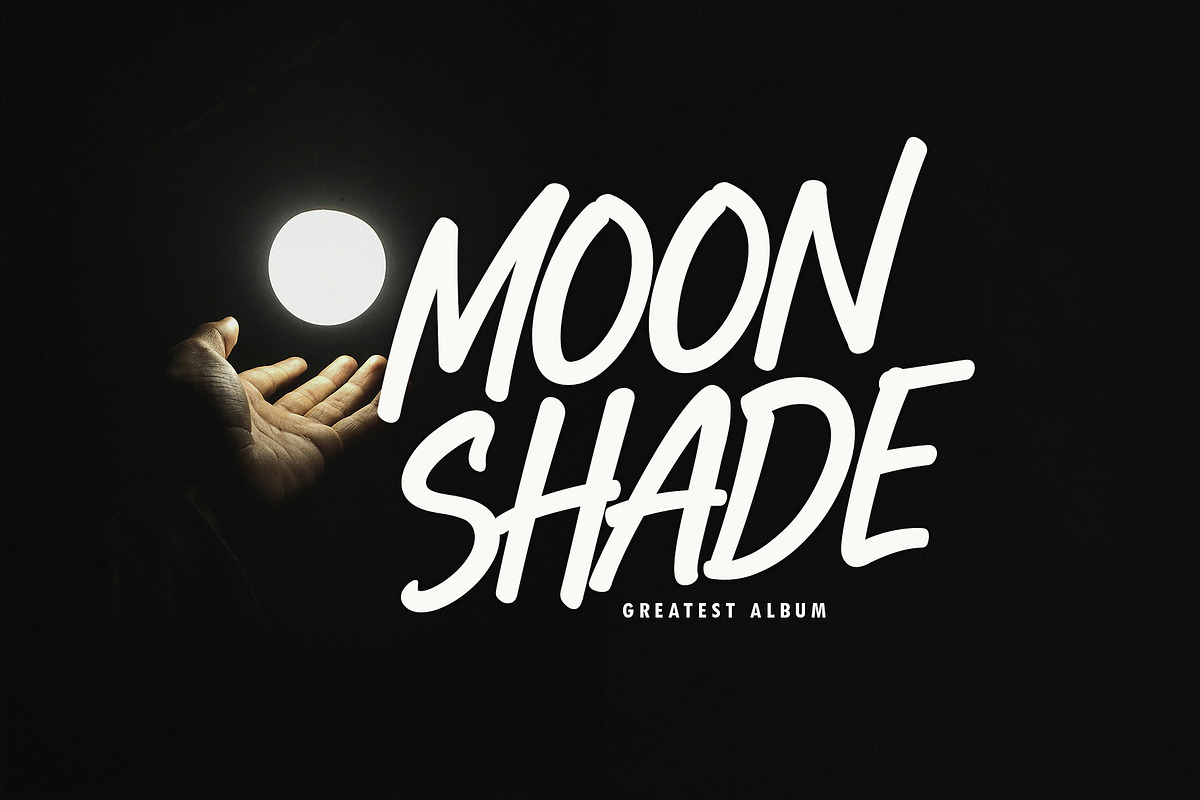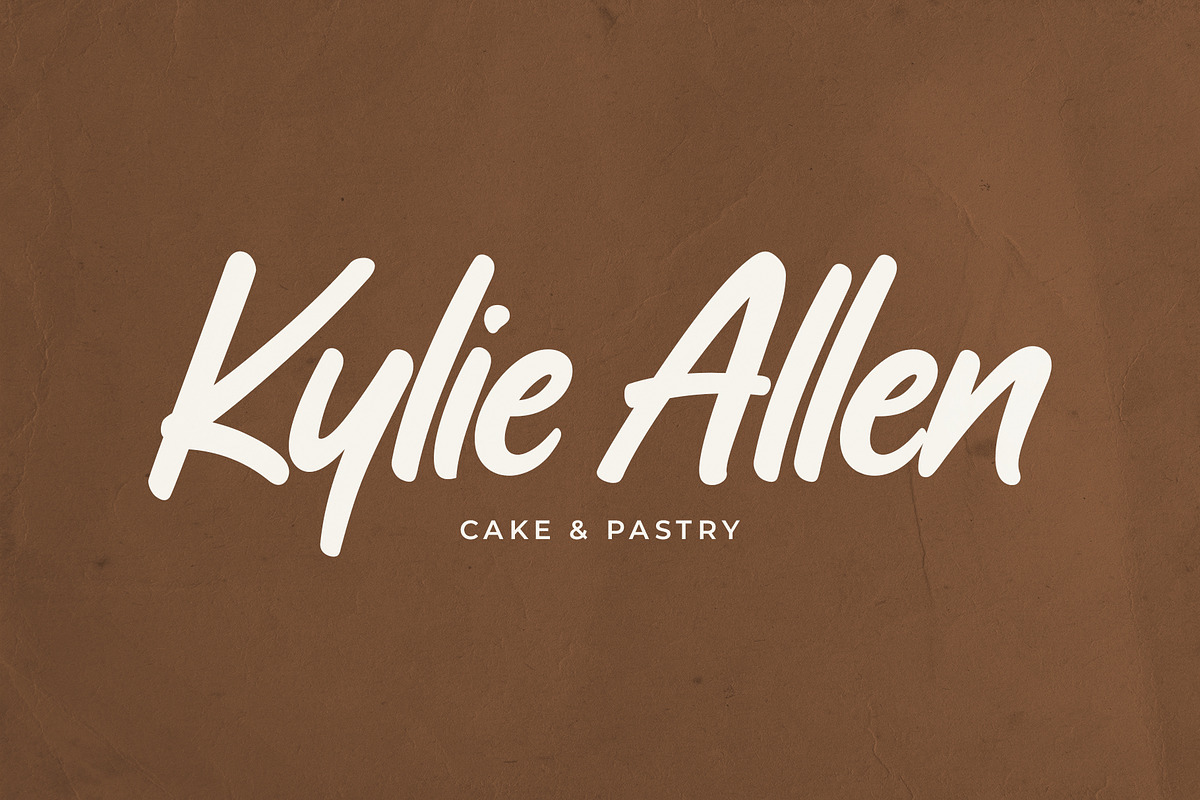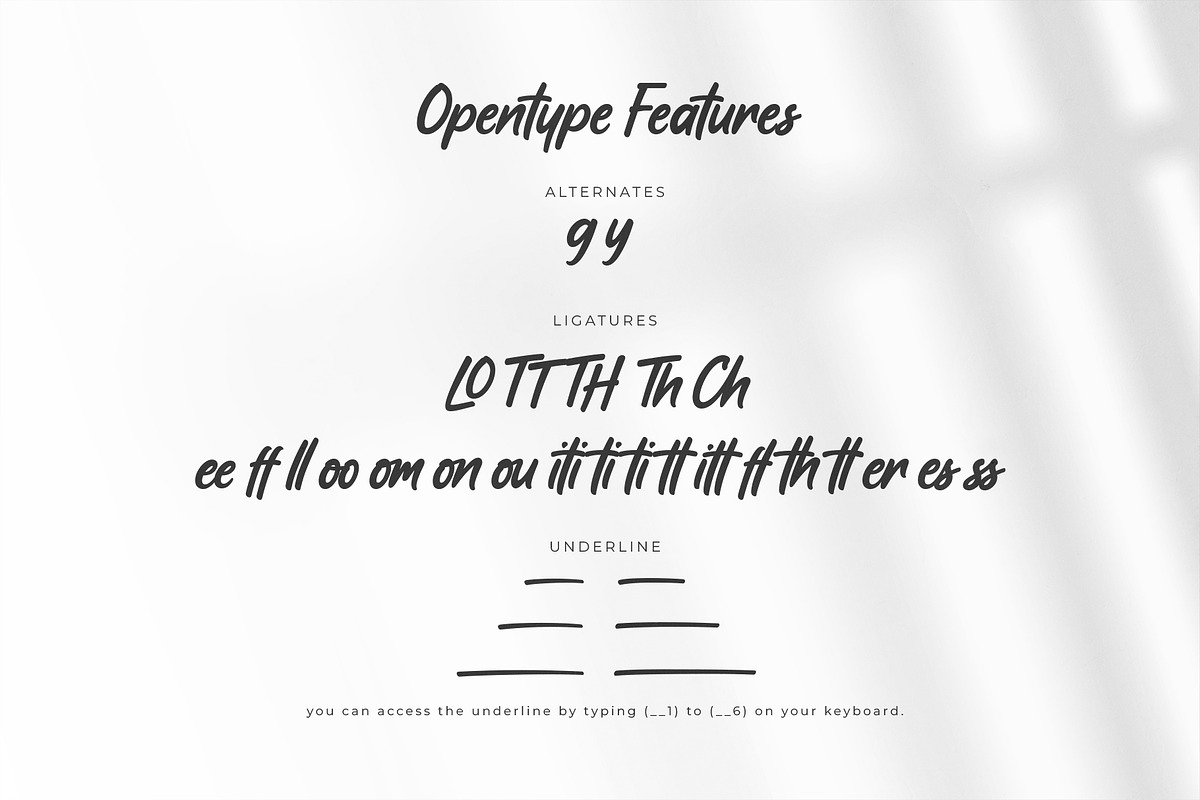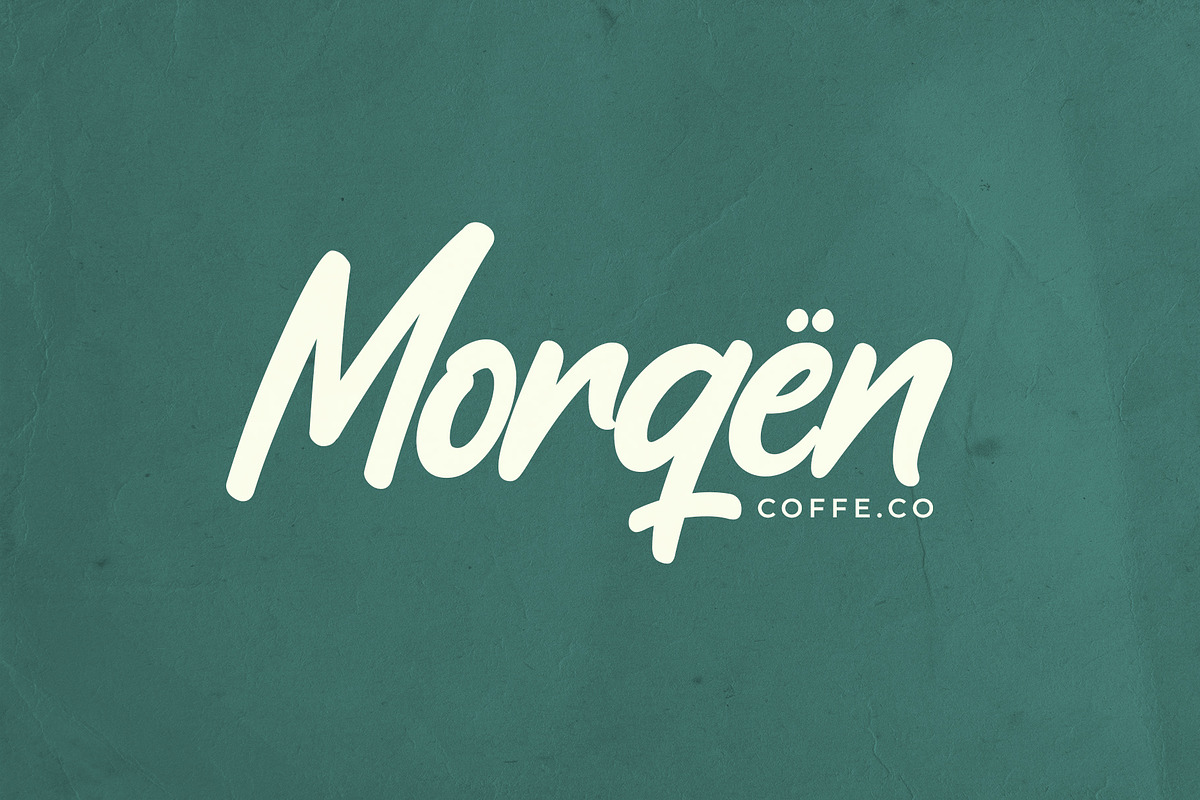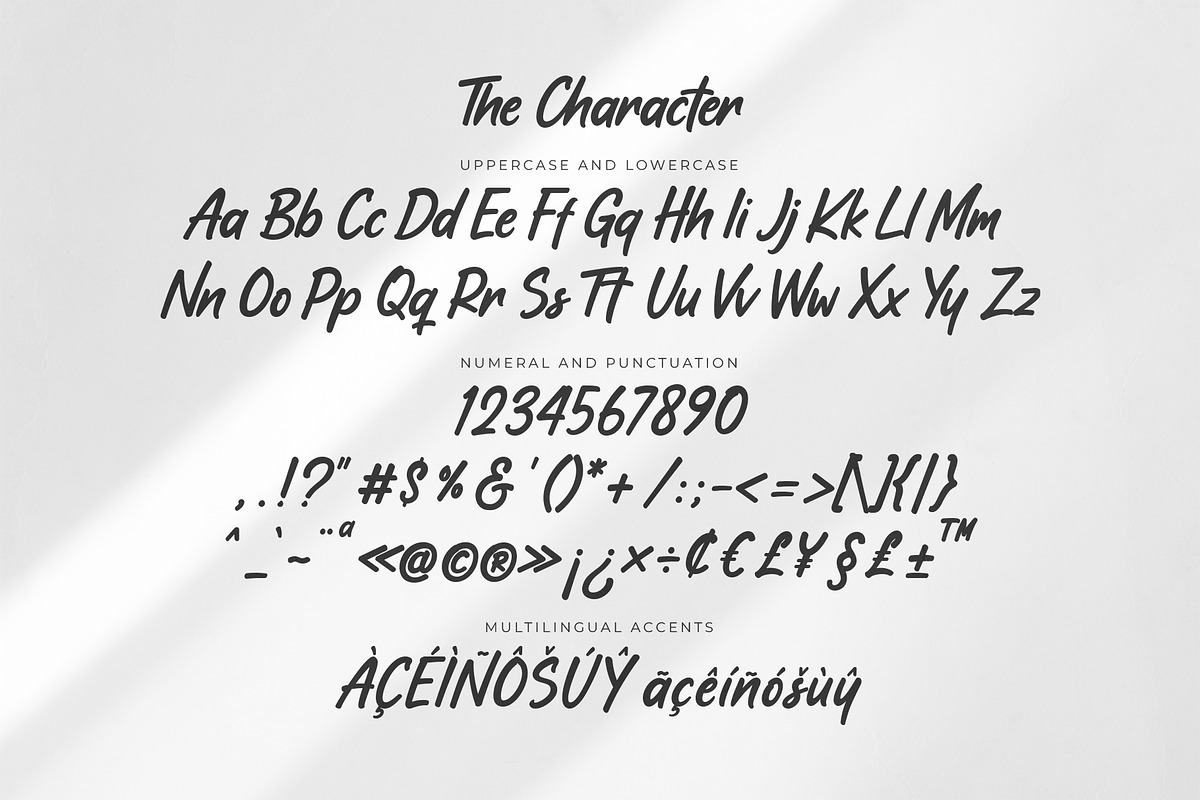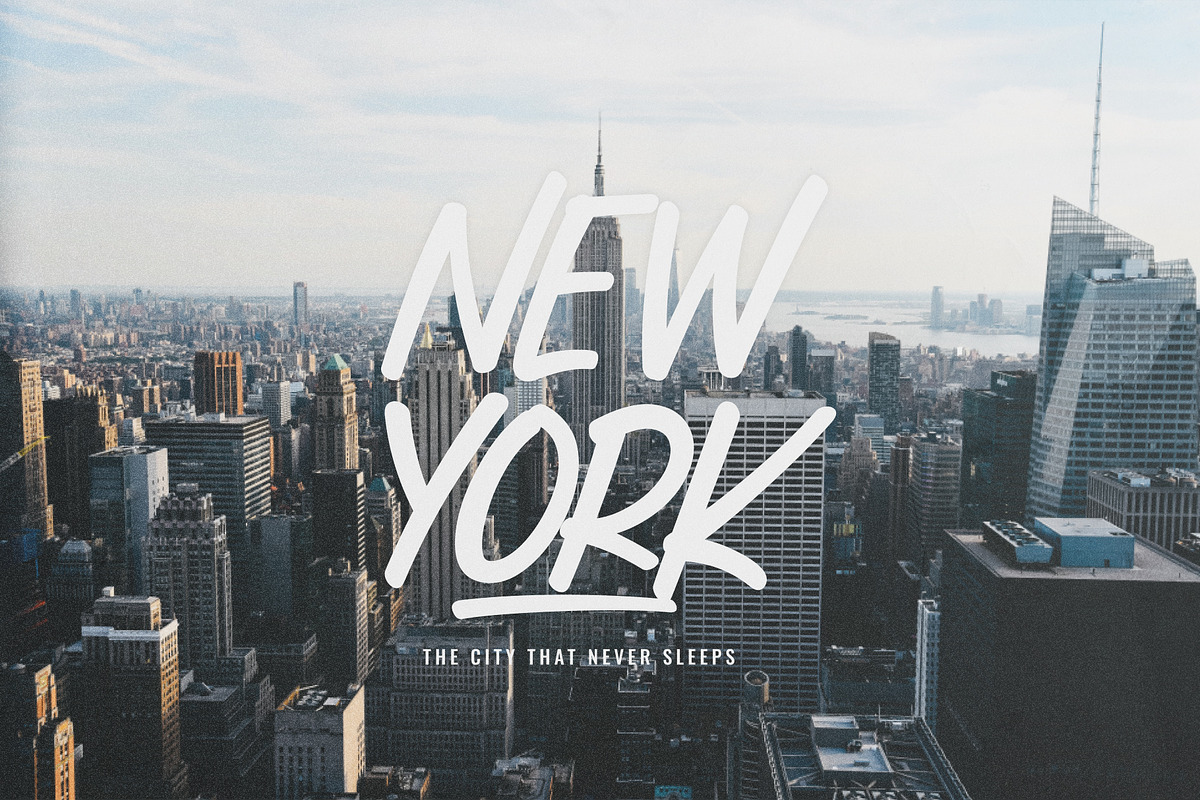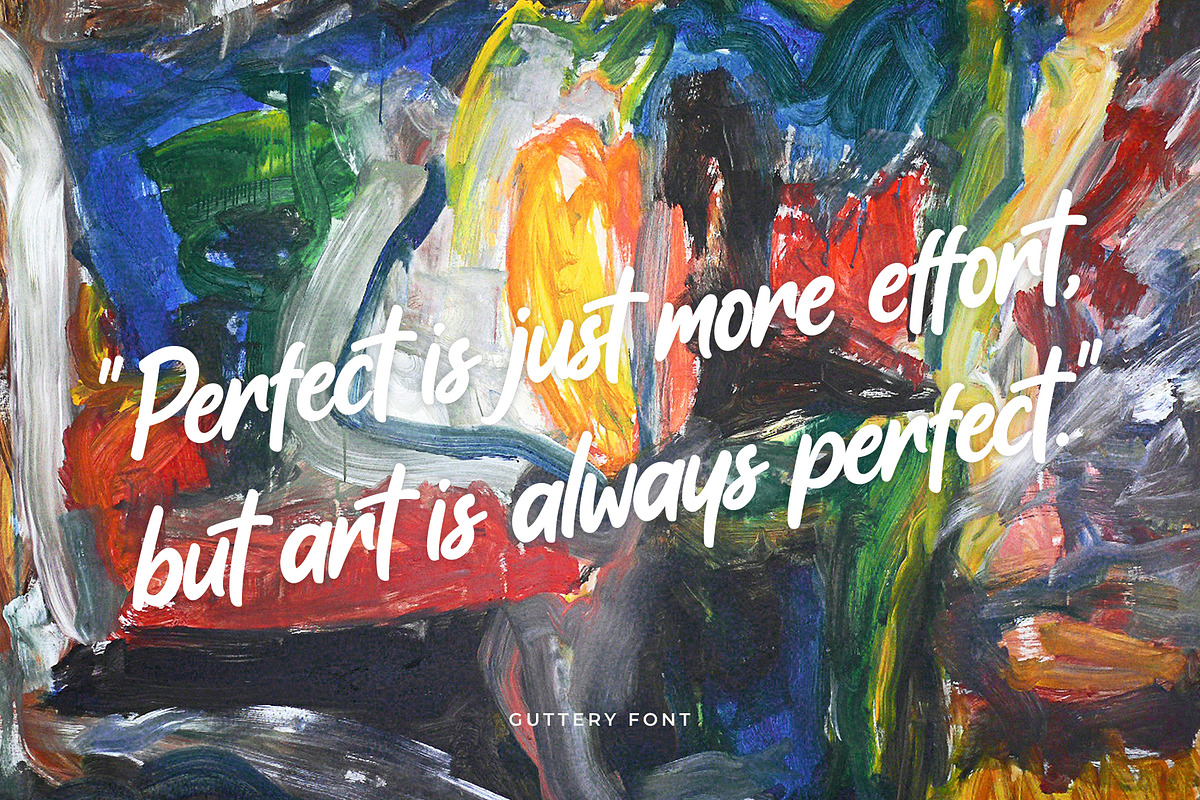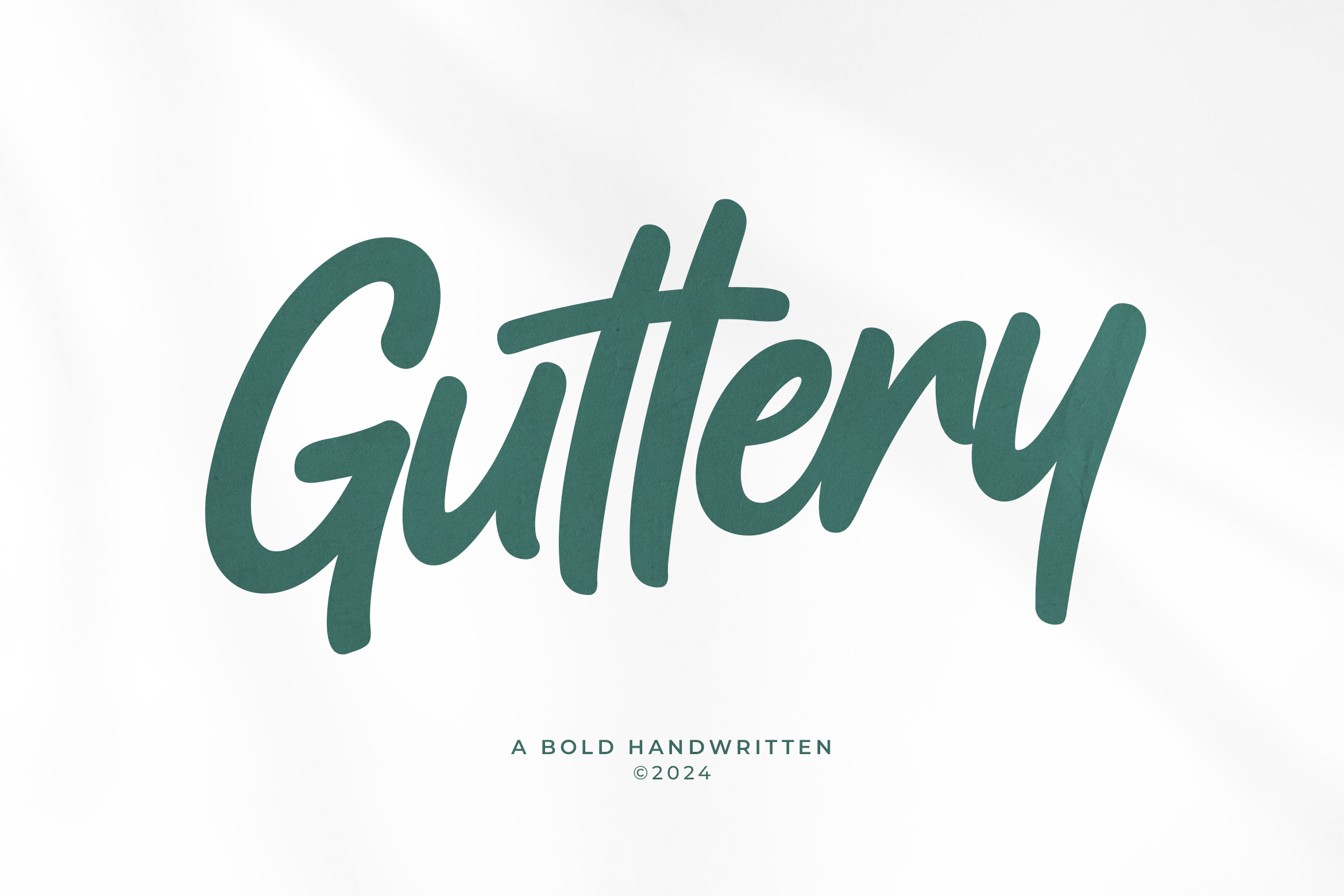
Guttery | Bold Handwritten Font
Guttery is a bold handwritten font. This font will make your designs look stand out, exclusive and authentic. This font offers opentype features such as end alternates, ligatures and underline sets. It offers support for all English characters, some characters in multiple languages and standard punctuation marks are included too.